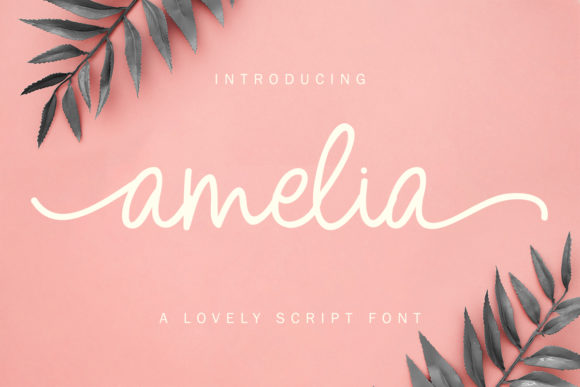
Introducing Amelia Script Font, a truly delightful and genuine script typeface that will instantly captivate your creative senses! Created by the talented Yumna_Type, this font is the perfect companion for anyone looking to add a touch of elegance and charm to their projects.
With Amelia Script, your craft ideas will soar to new heights, as this font effortlessly blends sweetness and authenticity in every stroke. Whether you're designing invitations, branding materials, or even crafting personalized gifts, Amelia Script will bring a unique and enchanting flair to your work.
Immerse yourself in the world of endless possibilities with Amelia Script. Let your imagination run wild as you explore its graceful curves and elegant letterforms. Each character is meticulously crafted, exuding a sense of refined sophistication that will leave a lasting impression on your audience.
Embrace the emotion and power that language holds. Amelia Script will effortlessly convey your heartfelt messages, making your words come alive on the page. From romantic love letters to inspirational quotes, this font will infuse your text with a distinctive charm that is impossible to ignore.
Not only does Amelia Script ooze elegance and charm, but it also boasts exceptional readability. Its well-balanced strokes and careful spacing ensure that your message is effortlessly understood, whether in print or on screen. Say goodbye to eye strain and hello to seamless legibility with this font.
But Amelia Script isn't just about aesthetics and readability. It's also a versatile tool that adapts to your needs. With a wide range of ligatures and alternate characters, you can easily customize your text and create a truly unique look. Stand out from the crowd and let your creativity shine with Amelia Script.